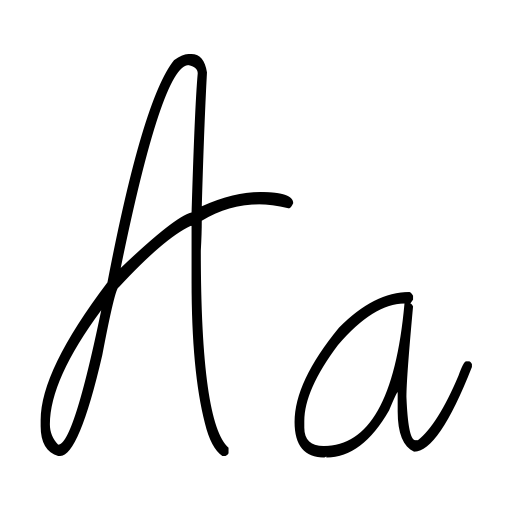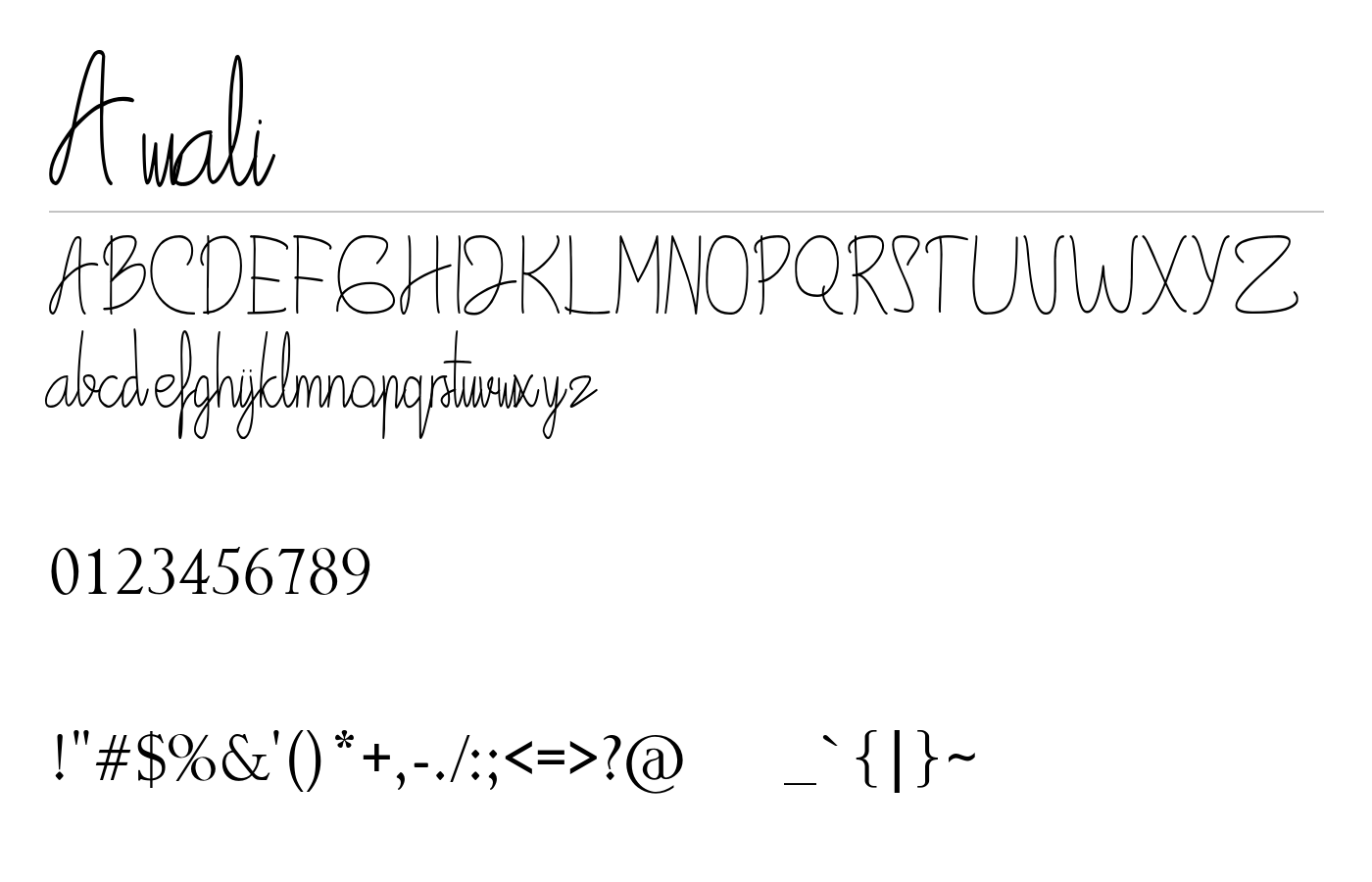
Awali is a delicate, handwritten script font characterized by its tall, slender letterforms and casual, playful style. Its thin strokes and airy spacing give it a light and elegant feel, making it ideal for creative projects, personal branding, and invitations where a friendly and approachable look is desired. This font works best in headlines and decorative uses, adding a personal and artistic touch to designs.
Awali Font
About Awali Font